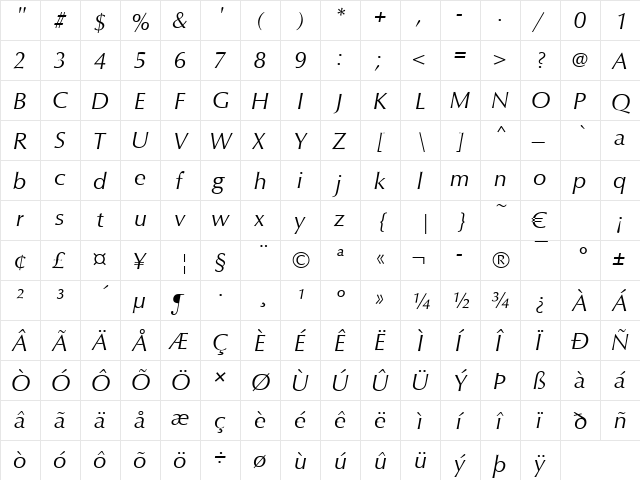
URW Classico Italic
Design Context for URW Classico Typeface
URW Classico wears its vintage influences proudly, with letterforms that recall mid-century signage, classic packaging, and nostalgia-driven design. The dynamic lean of this cut emphasises speed and emphasis in any layout.
Perfect for vintage-inspired branding, retro packaging, nostalgia campaigns, and period-accurate editorial design.
Font Pairing: Combine URW Classico with a simple slab or neutral sans — period-accurate companions reinforce the vintage feel without competing for attention.
Pro Tip: Use URW Classico for headlines and pull quotes rather than body copy — its personality is best appreciated in short, focused bursts.